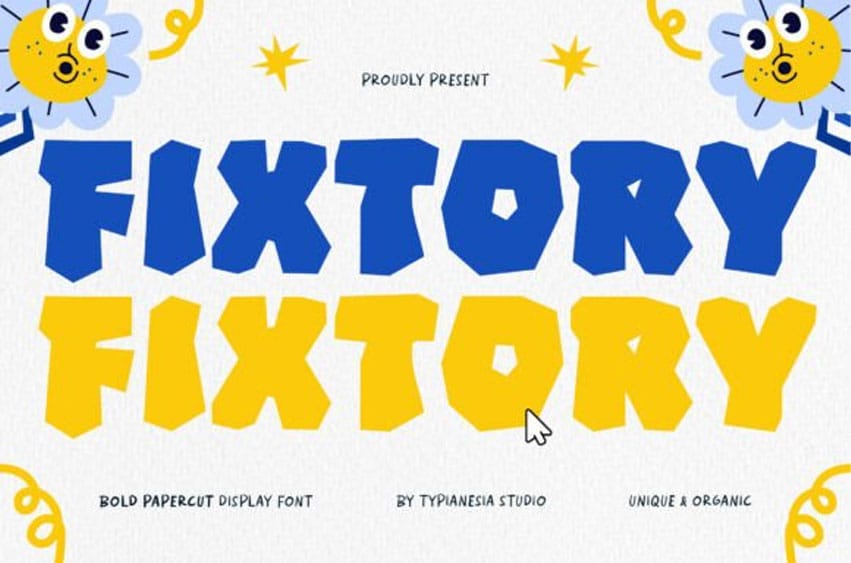
Fixtory Font is a distinctively playful and bold display font that captures the irresistible charm and tactile joy of authentic handmade paper cutout art.
This energetic typeface is designed to instantly engage young audiences, making the Fixtory font the ultimate choice for kid branding, vibrant game interfaces (especially for retro or arcade themes), and captivating children’s book covers and illustrations. The friendly, chunky weight and distinctive shape ensure maximum impact, perfect for memorable logos, wordmarks, and striking branding.
The strong visual presence of the Fixtory typeface shines in Cartoon titles, headers for toy packaging, and vibrant promotional materials, bringing an appealing, fun, and DIY feel to any project. Its versatility extends to fun-loving businesses like bakeries, coffee shops, and cafes. The font comes complete with uppercase and lowercase letters, numerals, punctuation, useful ligatures, and extensive Multilingual Support, allowing your playful design to effortlessly reach a global audience. Bring the joy of handmade papercraft to your digital designs. Download Fixtory today and start creating unforgettable, playful brands!